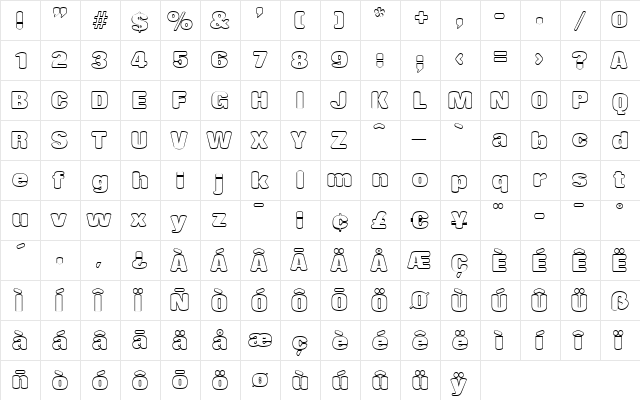
PatriciaBeckerOutline Regular
Design Context for PatriciaBeckerOutline Typeface
PatriciaBeckerOutline is built around its visual character rather than neutral utility — its distinctive forms are designed to make an impression at display sizes.
Font Pairing: Pair with a clean neutral sans-serif for body copy to let PatriciaBeckerOutline's character lead without overwhelming the composition.
Pro Tip: Treat PatriciaBeckerOutline as the centrepiece of your typographic hierarchy. One strong heading set in a decorative face can carry an entire layout.